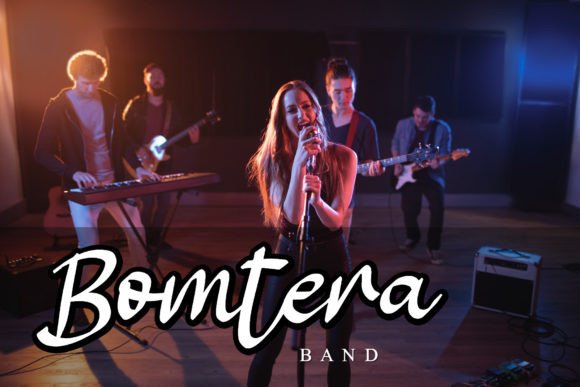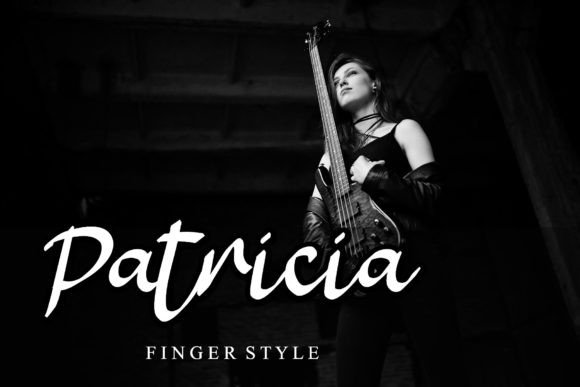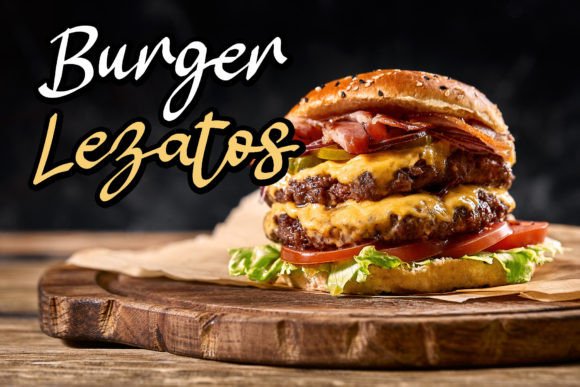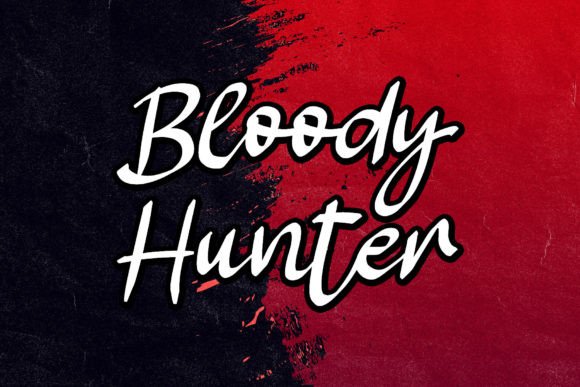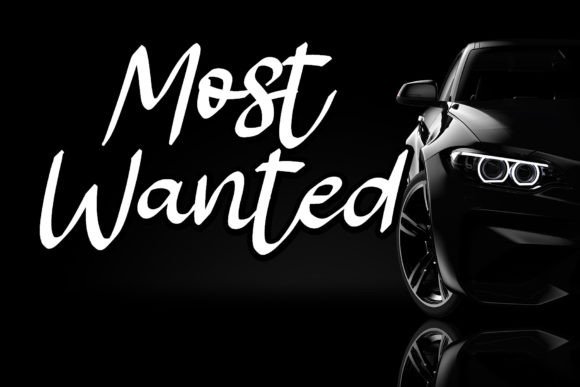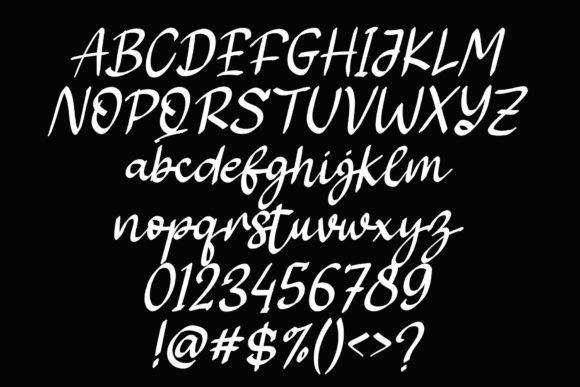
Introduction to Richard Smith Font
Have you ever been working on a creative project and found the perfect image, but the text just wasn’t fitting in? You’ve spent hours tweaking, adjusting, and experimenting with different fonts until you finally stumble upon the one that makes your design pop. That’s exactly what happened when designers discovered the Richard Smith Font, a beautiful, high-quality handwritten font that adds a touch of elegance to any design.
With its transparent background and natural feel, the Richard Smith Font is perfect for designers who want to add a personal and creative touch to their projects. Whether you’re working on a greeting card, a logo, or a business card, this font is sure to impress. And the best part? It’s a valuable design resource that’s available for free download, making it accessible to designers of all levels.
Whether you’re a seasoned pro or just starting out, the Richard Smith Font is a must-have in your design arsenal. Its high-quality design and versatility make it an ideal choice for any creative project, and its free download status means you can experiment and have fun without breaking the bank.
Key Features of Richard Smith Font
- High quality, professional font suitable for creative projects, with a transparent background for easy customization.
- Supports multiple languages and character sets, making it a versatile font for international projects.
- Unique, hand-drawn design with a personal touch, setting it apart from other fonts in its class.
- Perfect for use in various design applications, including print, web, and digital media, making it a valuable addition to any designer’s toolkit.
Honest Review: Richard Smith Font
I recently stumbled upon the Richard Smith Font, and I must say it’s been a game-changer for my creative projects. As a designer, I’m always on the lookout for high-quality design resources that can elevate my work, and this font definitely fits the bill.
One of the things that works well with the Richard Smith Font is its versatility. It’s perfect for a wide range of creative projects, from logos and branding to typography and web design. The font’s modern and sleek design makes it a great addition to any design portfolio.
However, I did notice a few limitations with the font. The lack of transparency options can be a bit restrictive, especially when working with complex designs that require a transparent background.
Overall, I’m impressed with the Richard Smith Font and would highly recommend it to fellow designers. Its high-quality design and versatility make it a valuable addition to any design resource collection.
The Richard Smith Font is a free design resource ideal for creative projects that require a high quality, unique font. This versatile font features a transparent background, making it suitable for various design applications.
Common Use Cases for Richard Smith Font
The Richard Smith Font is suitable for various design projects, including logos, business cards, and marketing materials. Its unique design and transparent background make it an ideal choice for creative projects that require a high level of customization.
To get the most out of the Richard Smith Font, experiment with different font sizes, colors, and combinations to achieve a unique look. You can also use the font in conjunction with other design elements to create a cohesive and visually appealing design.
Can I use the Richard Smith Font for a commercial project with a transparent background?
Yes, the Richard Smith Font is designed to work seamlessly with transparent backgrounds, making it perfect for creative projects that require a high level of design flexibility.
Is the Richard Smith Font suitable for use in print and digital applications?
Yes, the Richard Smith Font is designed to be highly legible and versatile, making it suitable for use in both print and digital applications, including signage, logos, and digital interfaces.